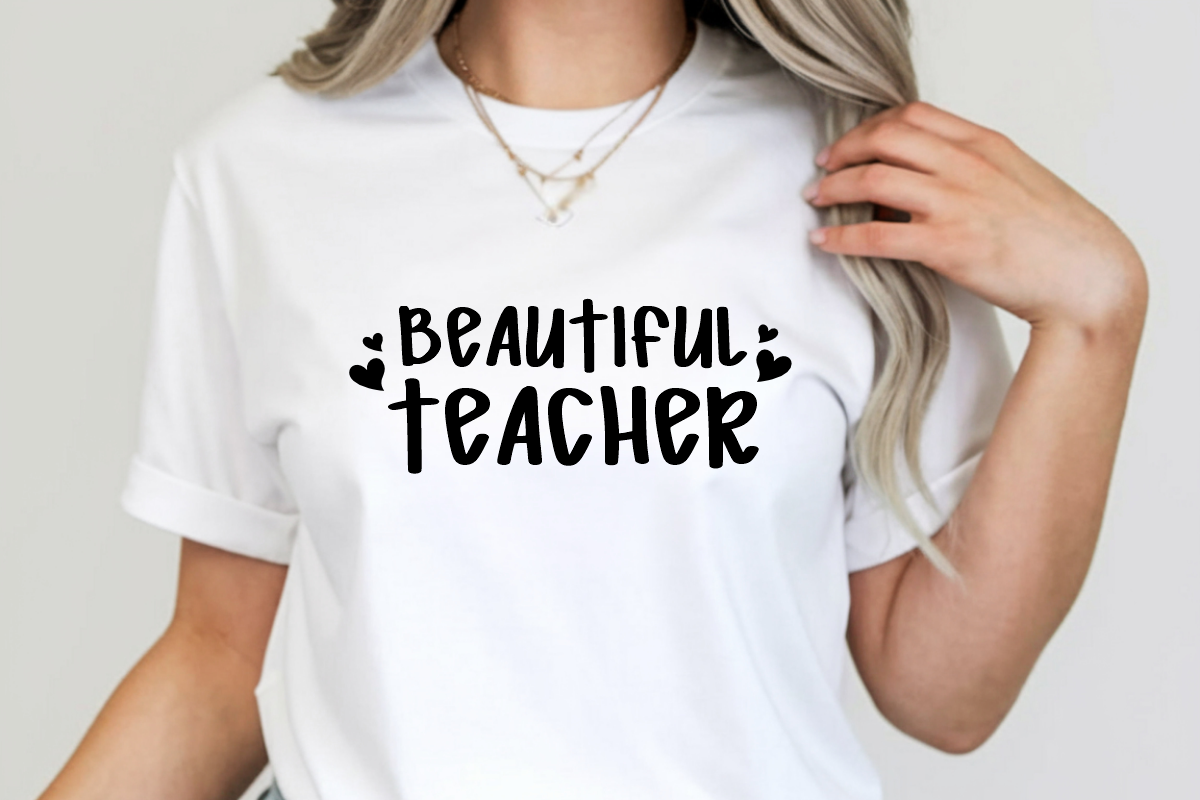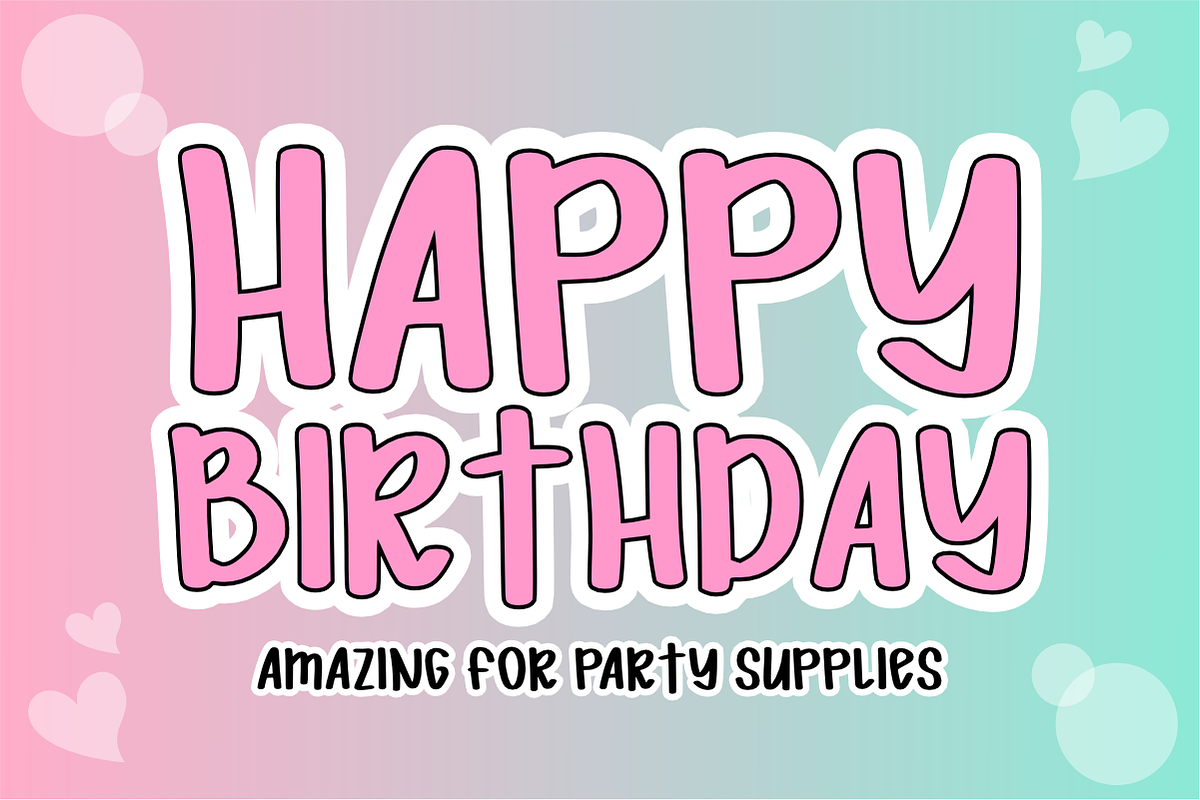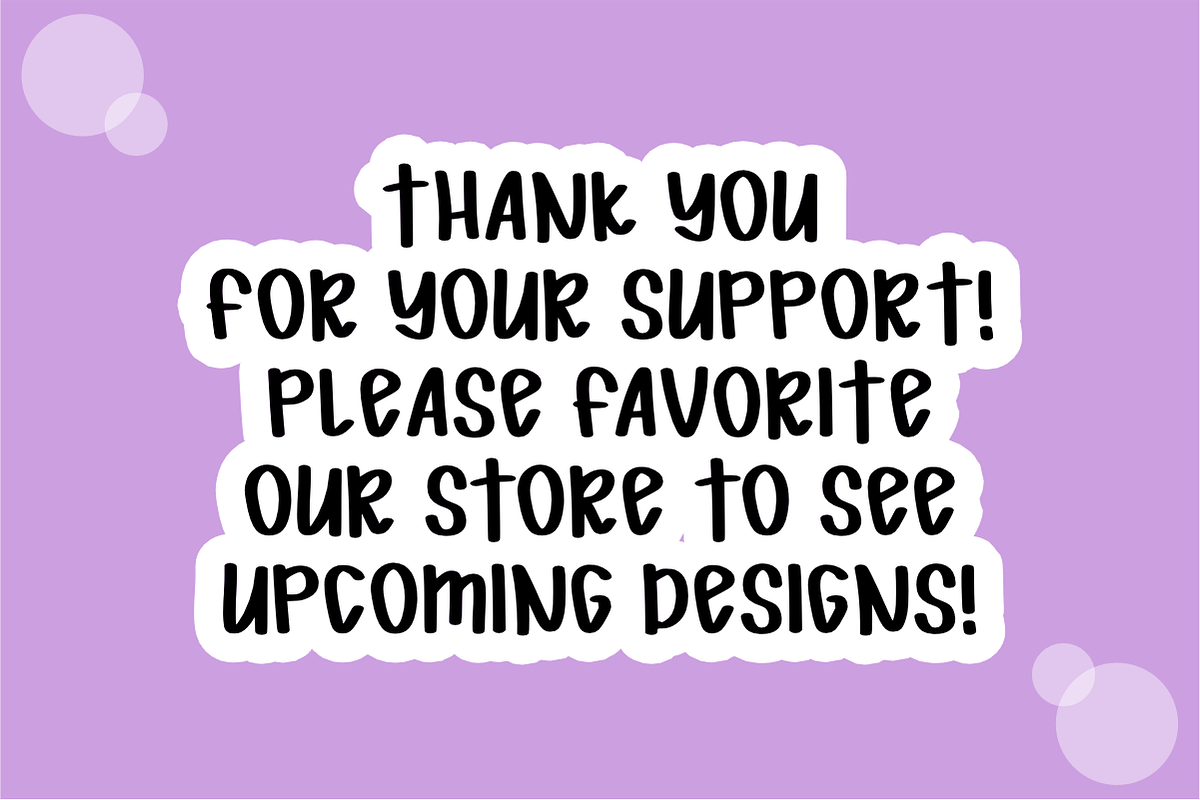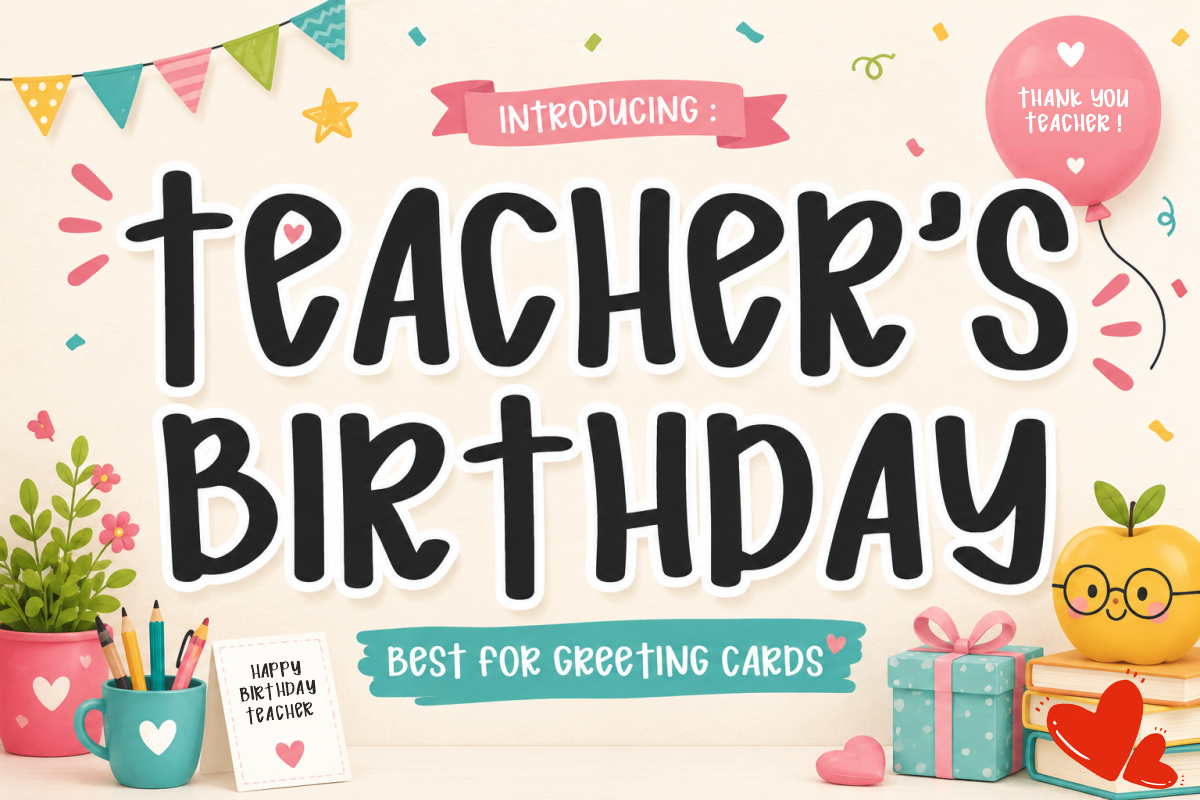
Teacher's Birthday-School Craft Font
Teacher's Birthday - Cute School & Craft Font
Teacher's Birthday is a sweet, tall, handwritten display font featuring friendly rounded letterforms filled with warm schoolhouse charm. Perfect for teacher appreciation gifts, birthday greeting cards, classroom decor, and creative craft projects, this playful font adds a joyful, heart-filled pop to all your designs. Every character is cleanly vectorized to guarantee high-resolution prints and smooth, effortless cutting on Cricut and Silhouette machines.
Ideal For:
Teachers Pay Teachers (TpT) authors creating classroom bulletin boards, student worksheets, and teacher appreciation printables
Cricut, Silhouette, and HTV vinyl cutting projects for teacher mugs, tote bags, classroom decor, and personalized gifts
Etsy sellers designing custom birthday greeting cards, teacher thank-you prints, cute stationery, and gift tags
Print-on-Demand (POD) products, teacher apparel, notebook covers, and lifestyle accessories
Canva template creators making birthday invitations, thank-you cards, and school event flyers
Custom die-cut sticker packs, planner decals, and digital scrapbooking layouts